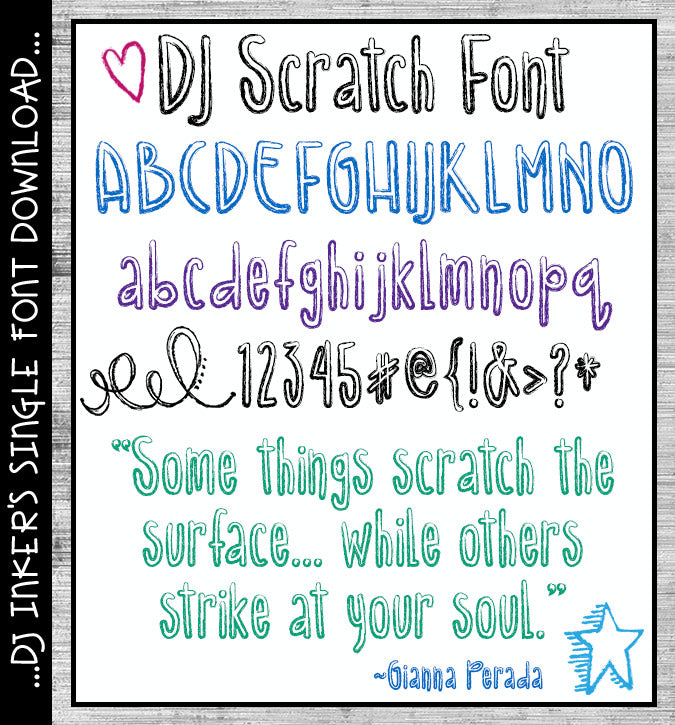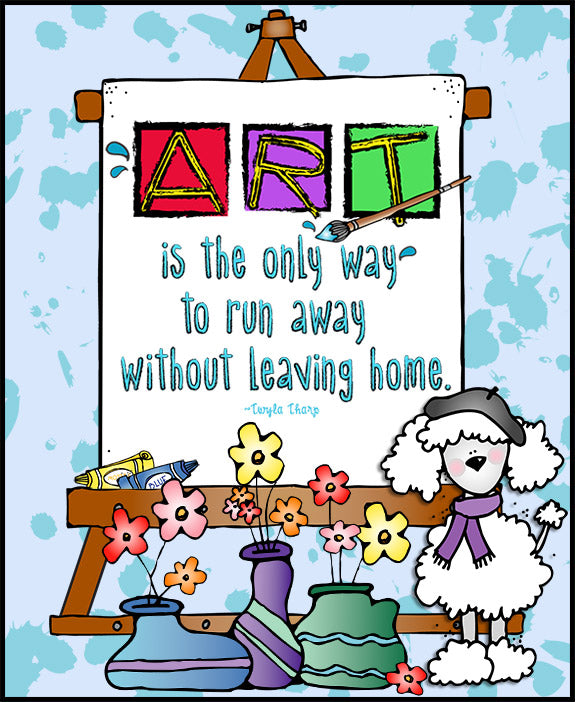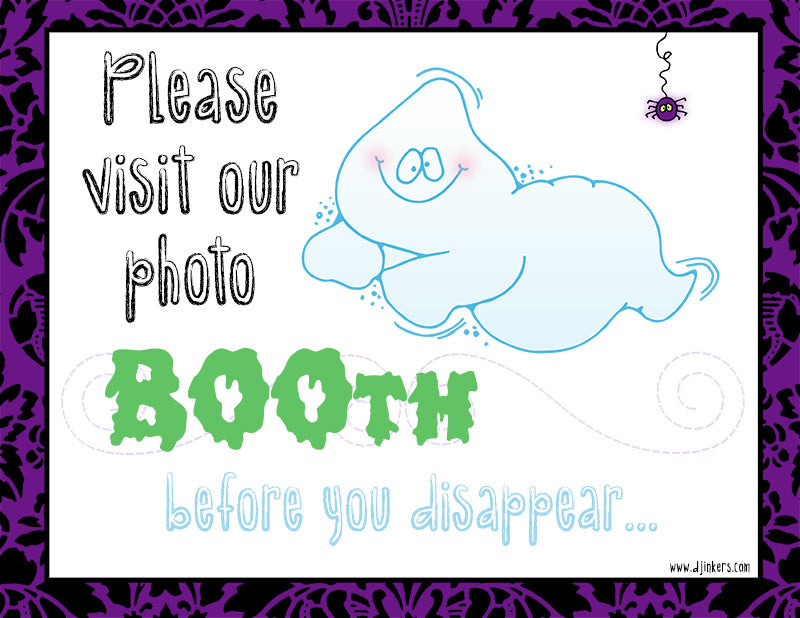
DJ Scratch Font Download
When you add a DJ font to your creations... you really begin to scratch the creative surface! Add a funky, artistic edge to your headlines, announcements and text with our unique DJ Scratch font. Try pairing it with anything chalky, woodsy, artsy or fun.